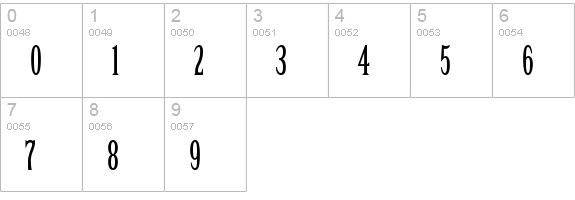
About The Font Birch Std.
Birch is an adobe originals typeface designed in 1990 by kim buker chansler. Below you can download free birch std font. Birch std font viewed 4083 times and downloaded 605 times.
Birch Is An Adobe Originals Typeface Designed In 1990 By Kim Buker Chansler.
Birch Was Designed In 1990 By Kim Buker Chansler, Who Based Her Forms On The Designs Of The Turn Of The 20Th Century.